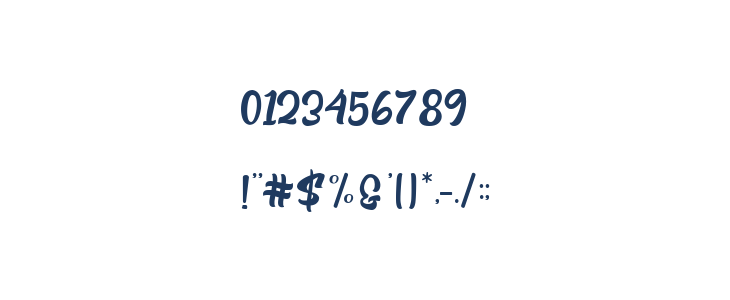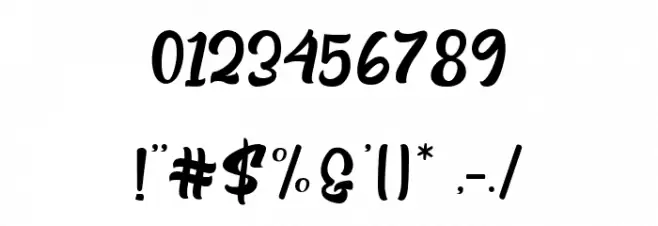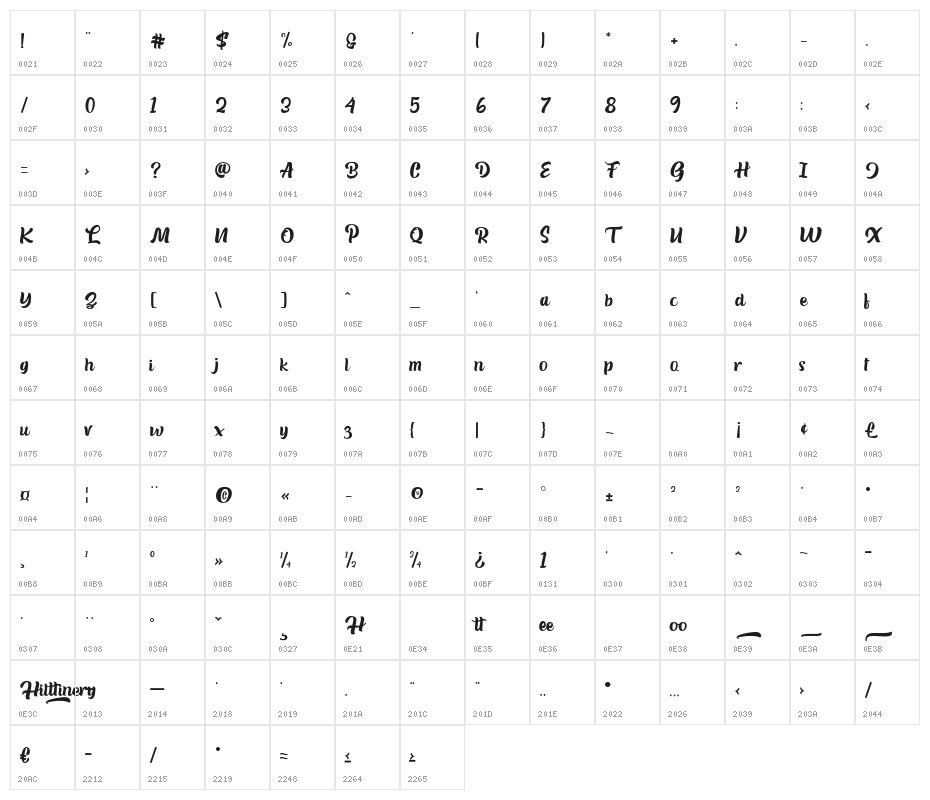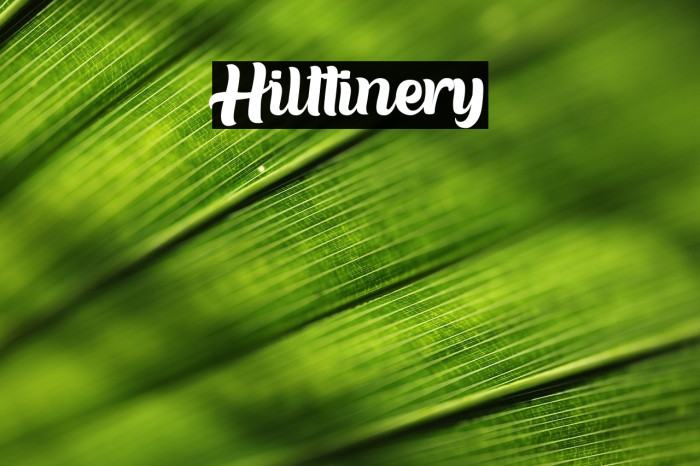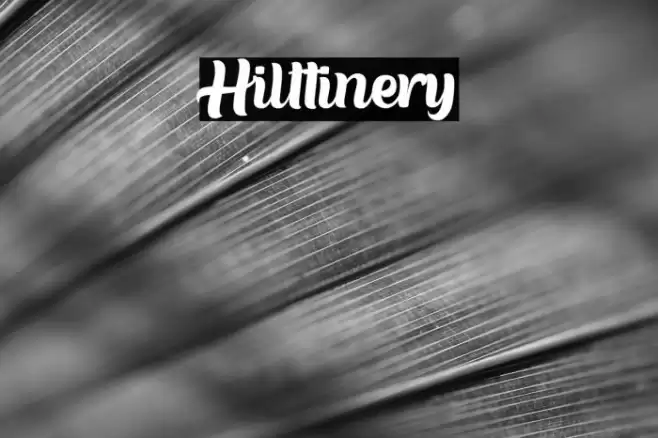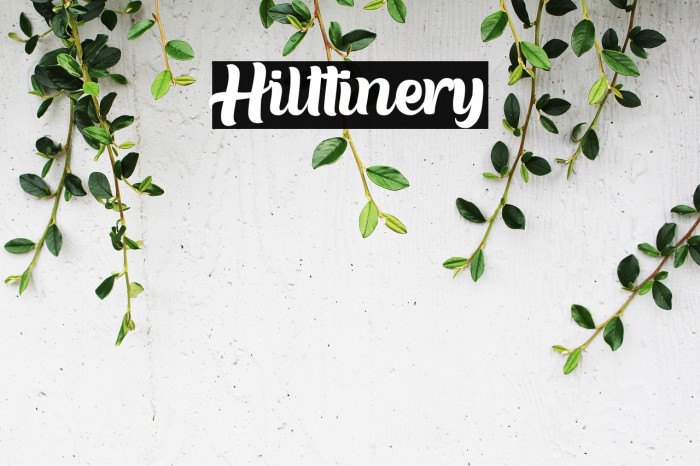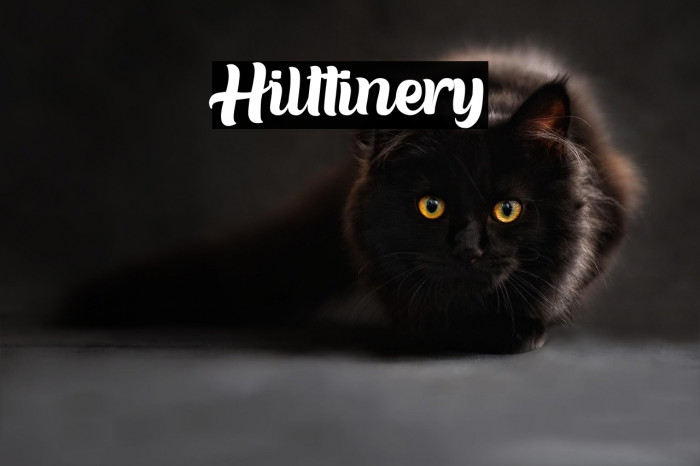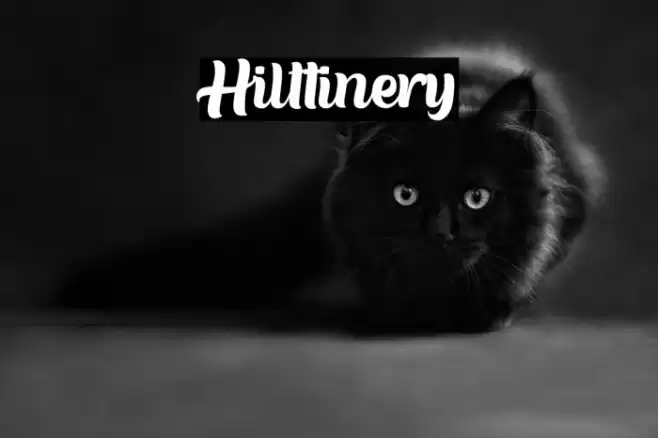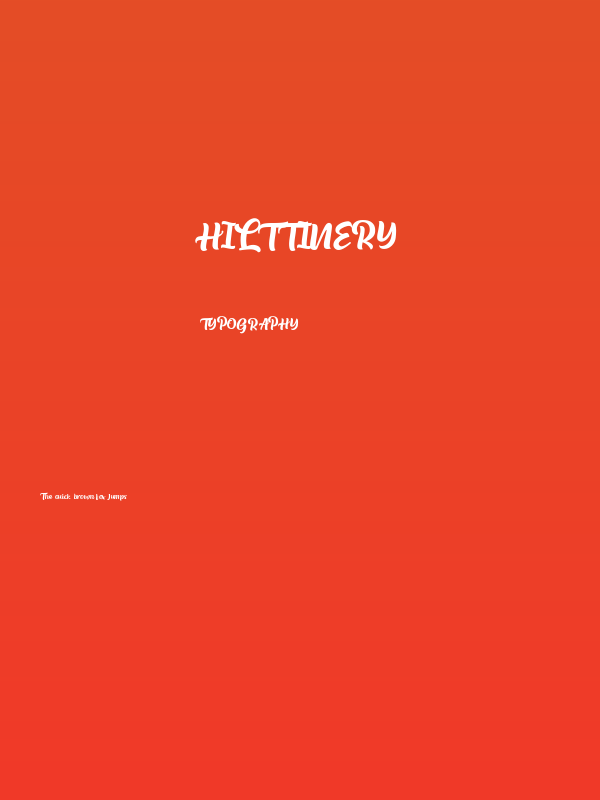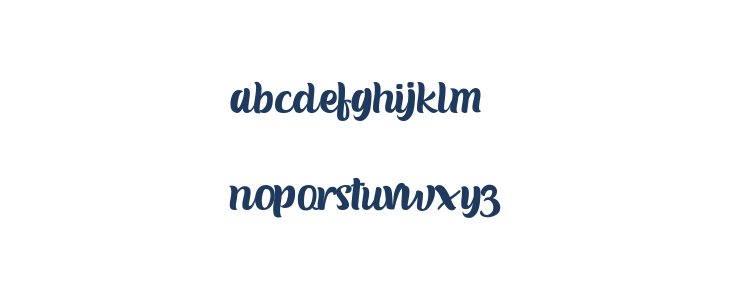
Hilttinery Font
Hilttinery Description
This font features a bold and flowing script style, characterized by its smooth, cursive strokes and elegant curves. The uppercase letters are prominently designed with a sense of movement, while the lowercase letters maintain a consistent flow, enhancing readability. The numerals are distinct and maintain the script's fluidity, making them suitable for various design contexts. Special characters are crafted with the same attention to detail, ensuring a cohesive look across all glyphs. This font exudes a sense of sophistication and charm, making it ideal for projects that require a personal touch.